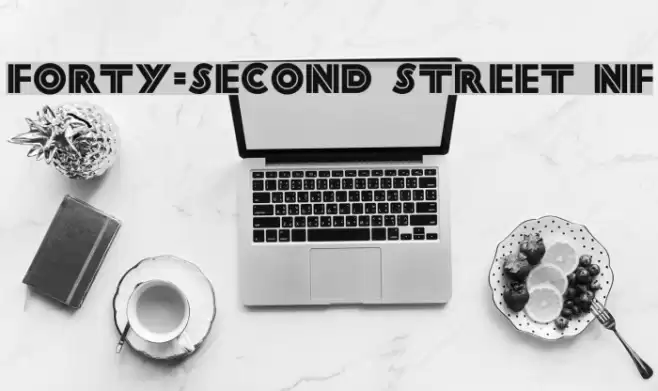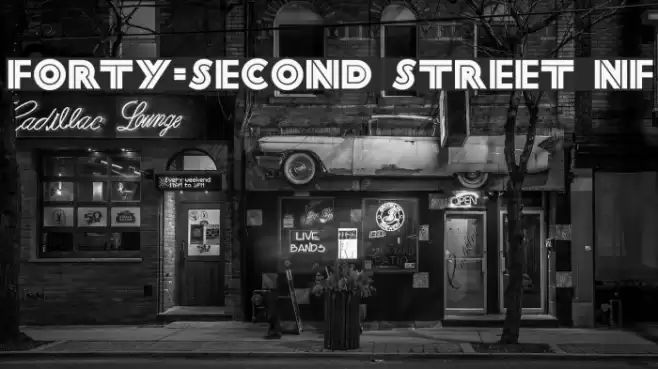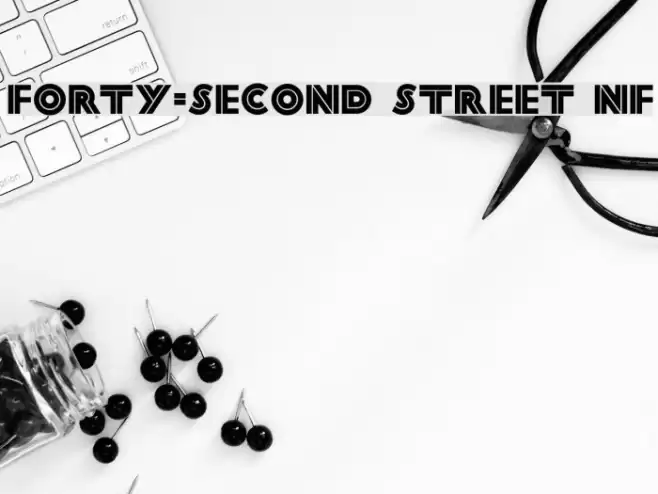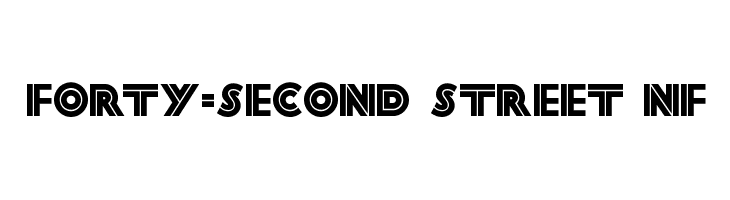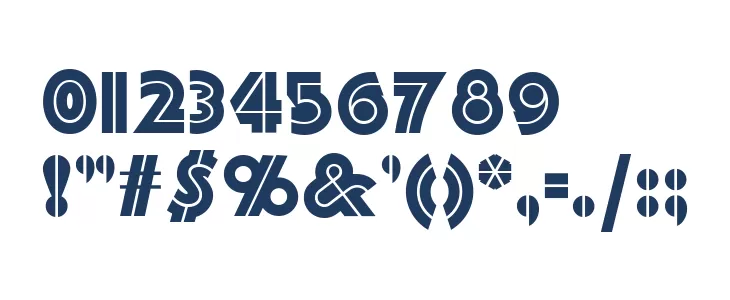
Forty-Second Street NF Font
Forty-Second Street NF Description
This font features a bold and striking Art Deco style, characterized by geometric shapes and strong lines. The uppercase letters are designed with a unique three-line pattern that adds depth and dimension, while the lowercase letters maintain a consistent boldness. Numbers and special characters follow the same aesthetic, ensuring a cohesive look across all text. The overall design is both retro and modern, making it versatile for various creative projects. Its distinct style is perfect for capturing attention and conveying a sense of elegance and sophistication.
A bold, Art Deco-inspired font with geometric shapes and strong lines from Retro fonts.
- Proposed Projects: Ideal for vintage-themed posters, branding, packaging, and editorial design.
- Overall Style: Vintage